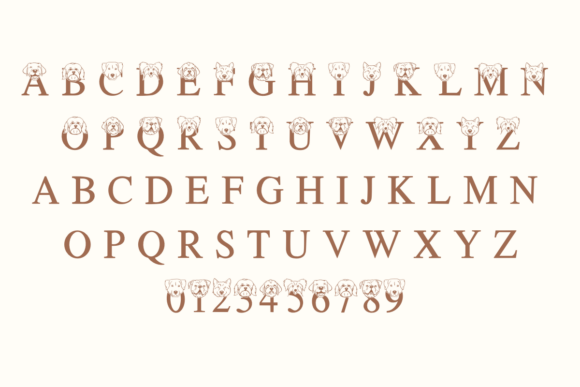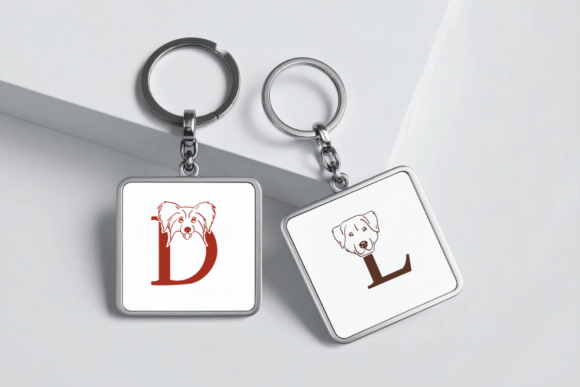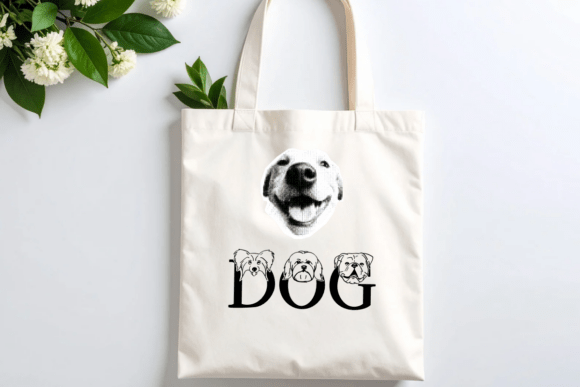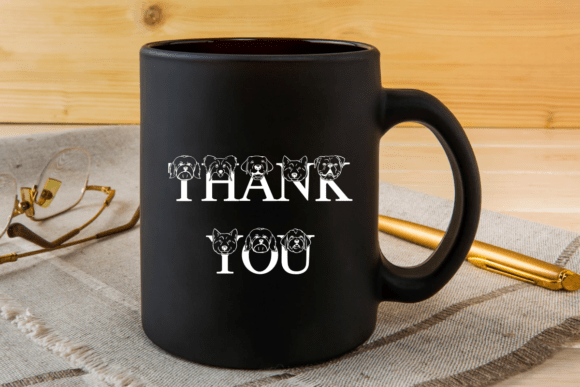
Dog Face Font: Unleash Whimsy and Charm for Pet Lovers
Are you a designer, crafter, or pet lover looking for a unique and playful font to add a touch of whimsy to your projects? Look no further than the Dog Face font, a heartwarming decorative typeface that’s sure to bring a smile to anyone’s face. In this article, we’ll dive into the world of Dog Face font, exploring its features, uses, and benefits for pet industry professionals, designers, and crafters.
What is Dog Face Font?
Dog Face font is a one-of-a-kind decorative typeface that cleverly incorporates adorable canine illustrations directly into its letterforms. This charming font is designed to celebrate our furry friends, making it perfect for pet-related projects, nursery decor, veterinary branding, and custom pet merchandise.
Key Features of Dog Face Font
- Unique Illustrations: Each letterform features an adorable dog face, carefully crafted to bring joy and personality to your designs.
- Bold and Sturdy Serif Base: The font’s serif base ensures that your message remains clear and legible, even when surrounded by whimsical character art.
- Customizable: With built-in “dog face” alternates, you can customize your layout to feature different breeds, ensuring your designs are as diverse and playful as you like.
Uses for Dog Face Font
Dog Face font is incredibly versatile, making it suitable for a wide range of projects, including:
- Nursery Decor: Add a touch of whimsy to nursery walls, bedding, or curtains with Dog Face font.
- Veterinary Branding: Create a memorable brand identity for your veterinary clinic or pet-related business.
- Custom Pet Merchandise: Design adorable pet accessories, such as bowls, toys, or apparel, with Dog Face font.
- Birthday Invitations: Create playful and eye-catching invitations for pet-themed birthday parties.
- Apparel Design: Add a fun and quirky touch to pet-themed t-shirts, hoodies, or tote bags.
- Social Media Content: Use Dog Face font to create engaging and shareable content for pet-related social media accounts.
Design Tips and Pairing Suggestions
To get the most out of Dog Face font, try pairing it with:
- Soft Pastel Palettes: Combine Dog Face font with soft pastel colors to create a cozy and welcoming atmosphere.
- Hand-Drawn Illustrations: Pair Dog Face font with hand-drawn illustrations of pets, flowers, or other whimsical elements to add texture and visual interest.
Dog Face font offers a range of benefits for designers and crafters, including:
- Unique Selling Point: Stand out from the competition with a one-of-a-kind font that showcases your creativity and playfulness.
- Time-Saving: Use Dog Face font to quickly and easily add a touch of whimsy to your designs, saving you time and effort.
- Endless Inspiration: With its customizable features and adorable illustrations, Dog Face font is sure to inspire new ideas and projects.
Dog Face font is a delightful and charming decorative typeface that’s sure to bring joy and personality to your designs. With its unique illustrations, bold serif base, and customizable features, this font is perfect for pet lovers, designers, and crafters looking to add a touch of whimsy to their projects. So why not unleash your creativity and get started with Dog Face font today?